Volta Sans Serif Font #1
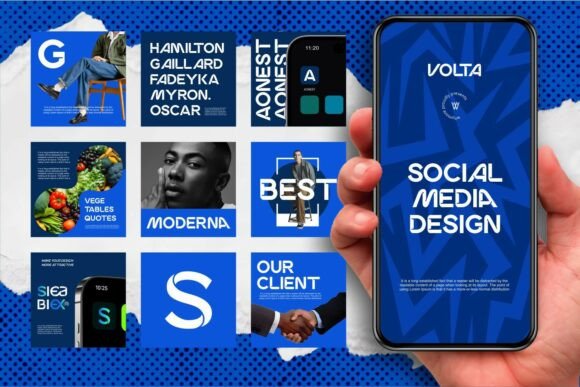
If you need a typeface that radiates strength and authority, Volta is a bold, condensed modern font that seamlessly blends futuristic, sporty, and grunge aesthetics. This sans serif font is engineered for designers who want their visuals to look professional and command immediate attention. It is a top-tier sans serif font for Adobe users looking to break away from traditional styles and embrace a more aggressive, standout look.
This sans serif font is fully optimized for Adobe Photoshop, Illustrator, and InDesign, ensuring its bold character remains crisp across high-resolution displays and print media. Volta is the ideal solution for:
- Modern Branding: Crafting powerful logos and brand identities that feel professional yet edgy.
- Social Media & Content: Designing YouTube thumbnails and Instagram graphics that are instantly eye-catching.
- Promotional Media: Creating posters, mockups, and presentations that require a strong, assertive voice.
- Creative Interfaces: A perfect fit for digital design projects in Figma or Canva that demand a contemporary feel.
Minimalist Sans Serif Font #2
If you are looking for a typeface that prioritizes simplicity and a welcoming vibe, Minimalist is a casual and creative sans serif font that radiates warmth and friendliness. Despite its name, this font isn’t just about “less”; it’s about more connection. Its round, playful strokes create a relaxed and approachable feel, making it an excellent sans serif font for Adobe users who want to add a human touch to their digital layouts.
This sans serif font is perfectly balanced for Adobe Photoshop and Illustrator, ensuring that its charming, hand-drawn aesthetic remains professional and clean. It is a fantastic choice for:
- Personal Projects: Ideal for custom stationery, greeting cards, and heartfelt digital letters.
- Social Media Graphics: Perfect for creating Instagram quotes, TikTok overlays, and Pinterest graphics that feel authentic and “lived-in.”
- Approachable Branding: A great fit for small businesses, handmade shops, or brands that value a friendly, down-to-earth identity.
- Event Invitations: Use it for baby showers, birthday parties, or casual get-togethers where a formal font would feel too stiff.
Mandey Sans Serif Font #3
If you are seeking the perfect balance between high-end fashion and modern functionality, Mandey is the epitome of elegance. This sophisticated family font showcases clean and stylish condensed sans serif font characters that range from delicate Thin to impactful Bold. It is a premier sans serif font for Adobe users who require a cohesive blend of sleek aesthetics and total design flexibility.
This sans serif font is expertly optimized for Adobe Illustrator, InDesign, and Photoshop, providing a contemporary persona that excels in both large-scale headlines and subtle body text. It is a professional choice for:
- Premium Brand Identities: Creating sharp, modern logos and corporate style guides that command respect.
- Editorial & Layout Design: Perfect for fashion magazines, high-end catalogs, and sleek editorial spreads.
- Web & UI Interfaces: A highly legible choice for modern website headers and mobile app interfaces.
- Print Media: Designing clean, minimalist posters and professional marketing collateral.